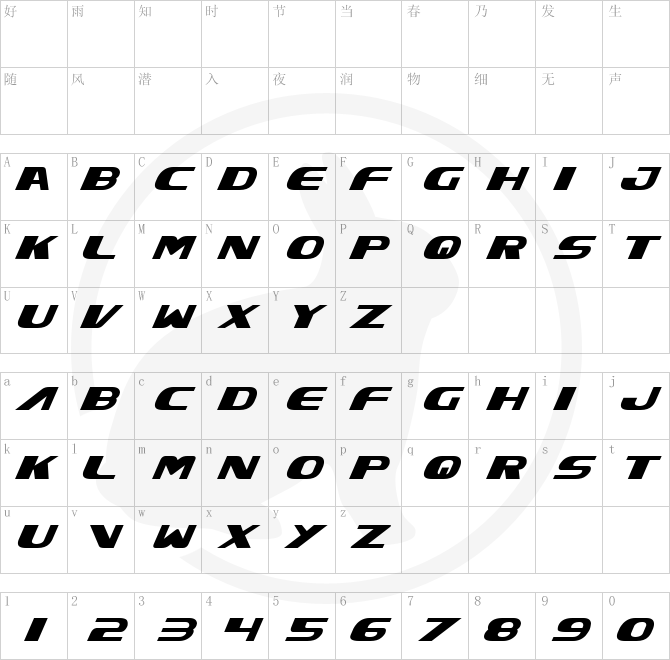
- Font Name:Xcelsion Italic
Xcelsion-Italic-copy-2-.ttf is a very beautiful artistic font, Xcelsion-Italic-copy-2-.ttf is widely used in the design and printing of various books and pictures,Xcelsion-Italic-copy-2-.ttf has a strong visual impact,Xcelsion-Italic-copy-2-.ttf is a commonly used font in newspapers, magazines and books, and is used in posters, e-commerce Poster design, store design, logo design, font design and other fields.Xcelsion-Italic-copy-2-.